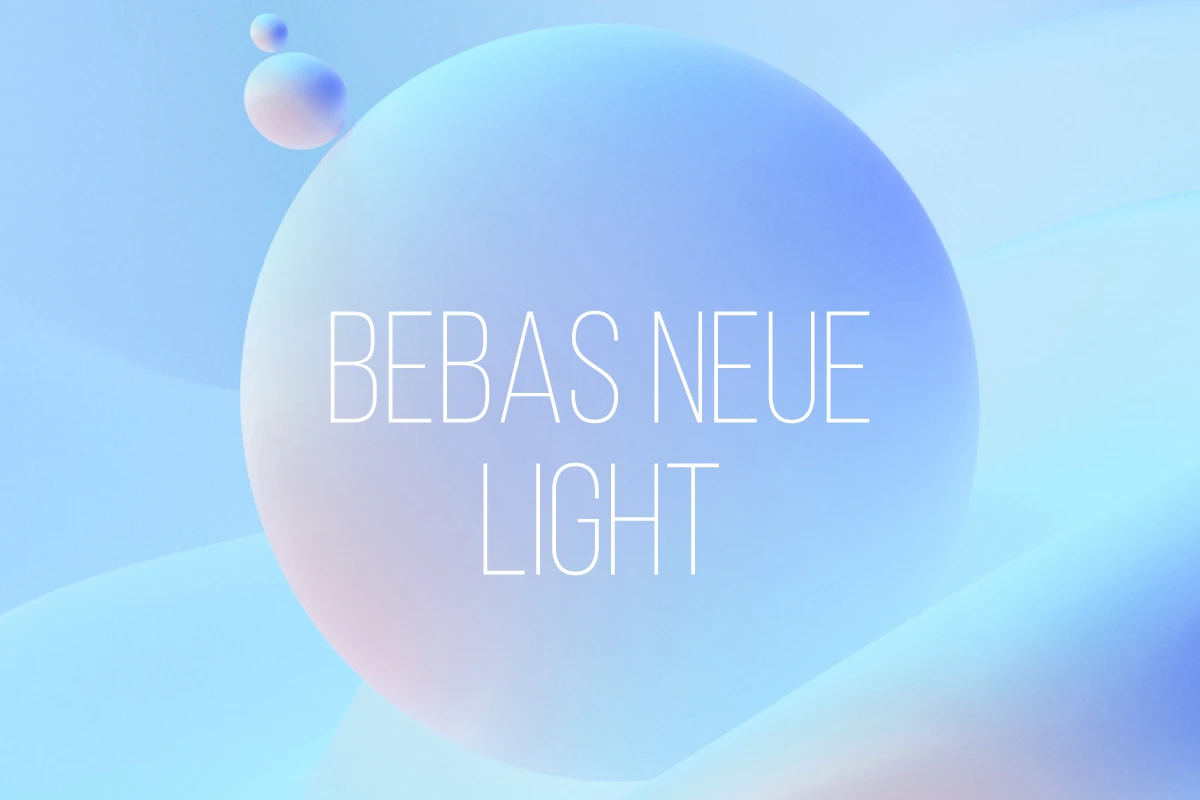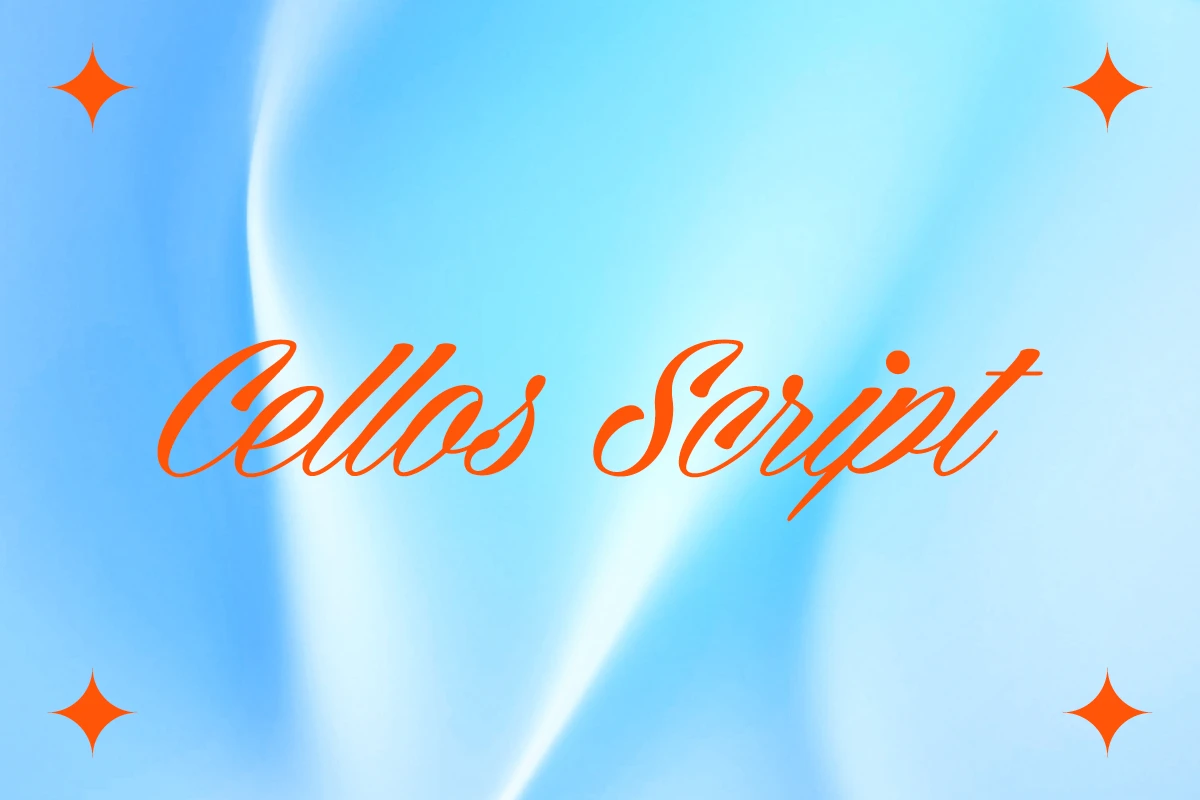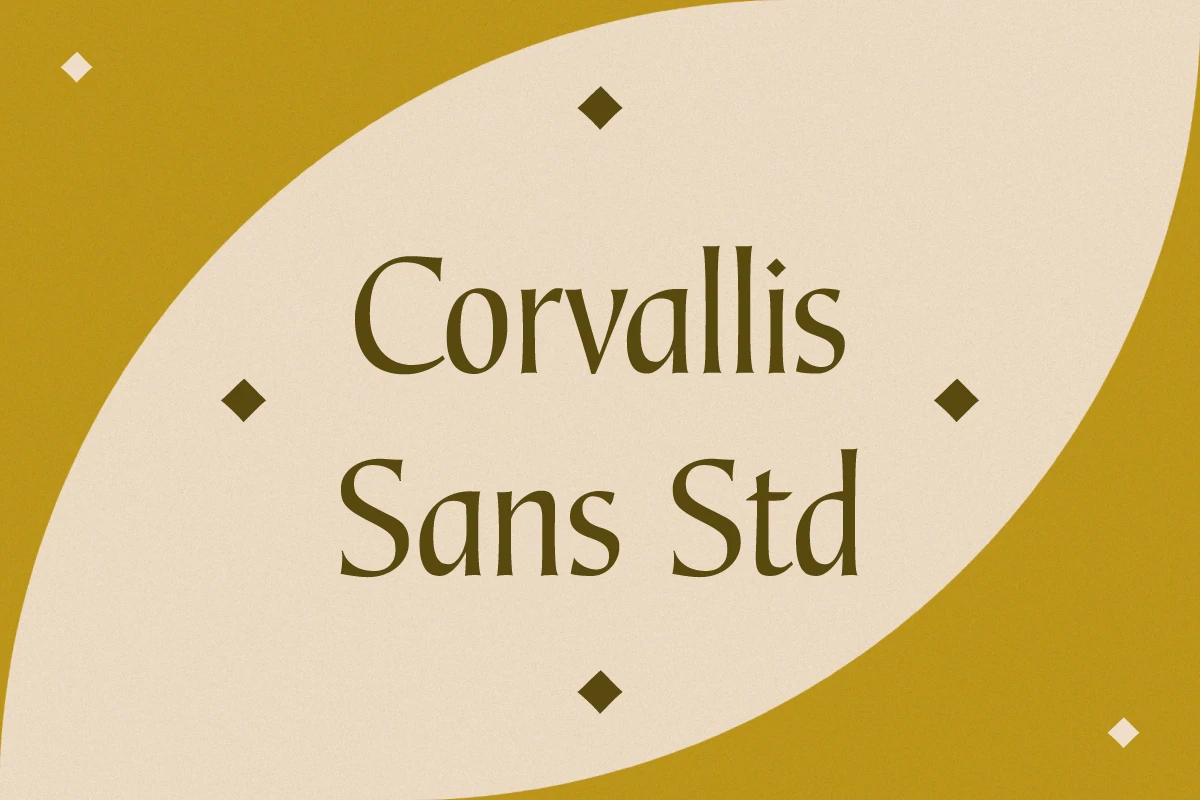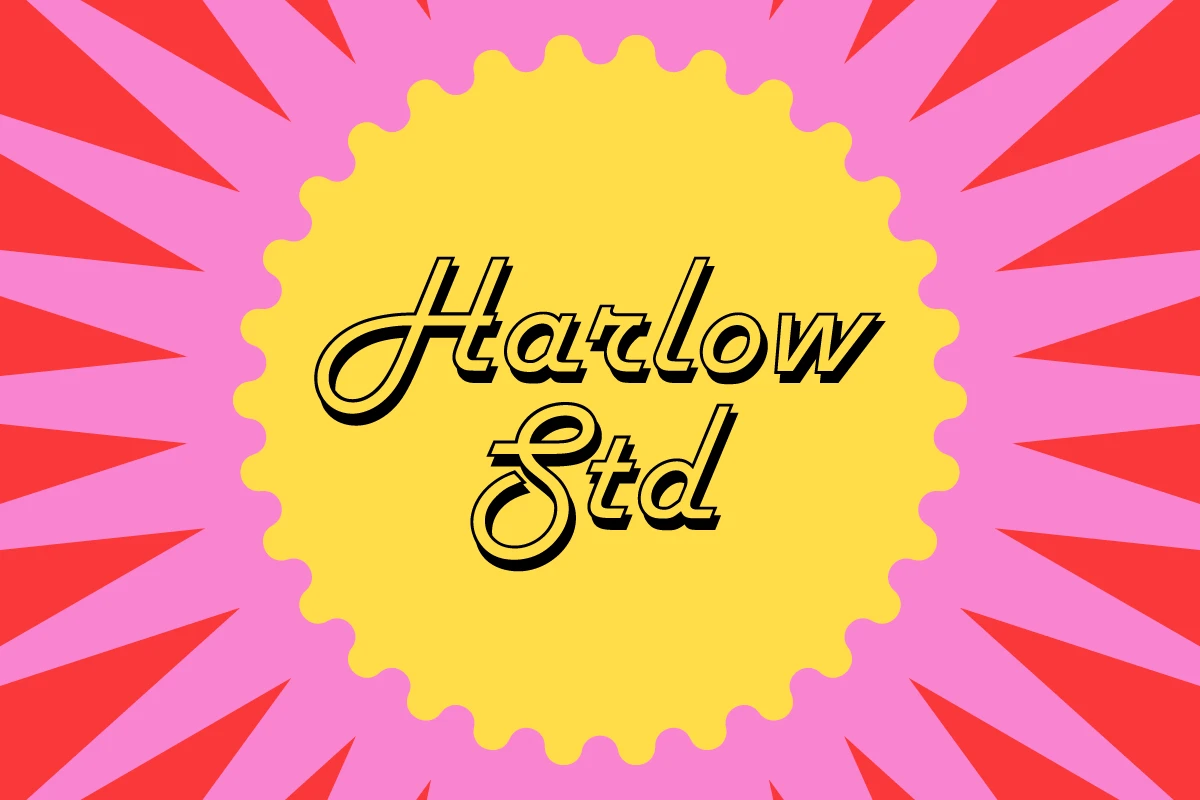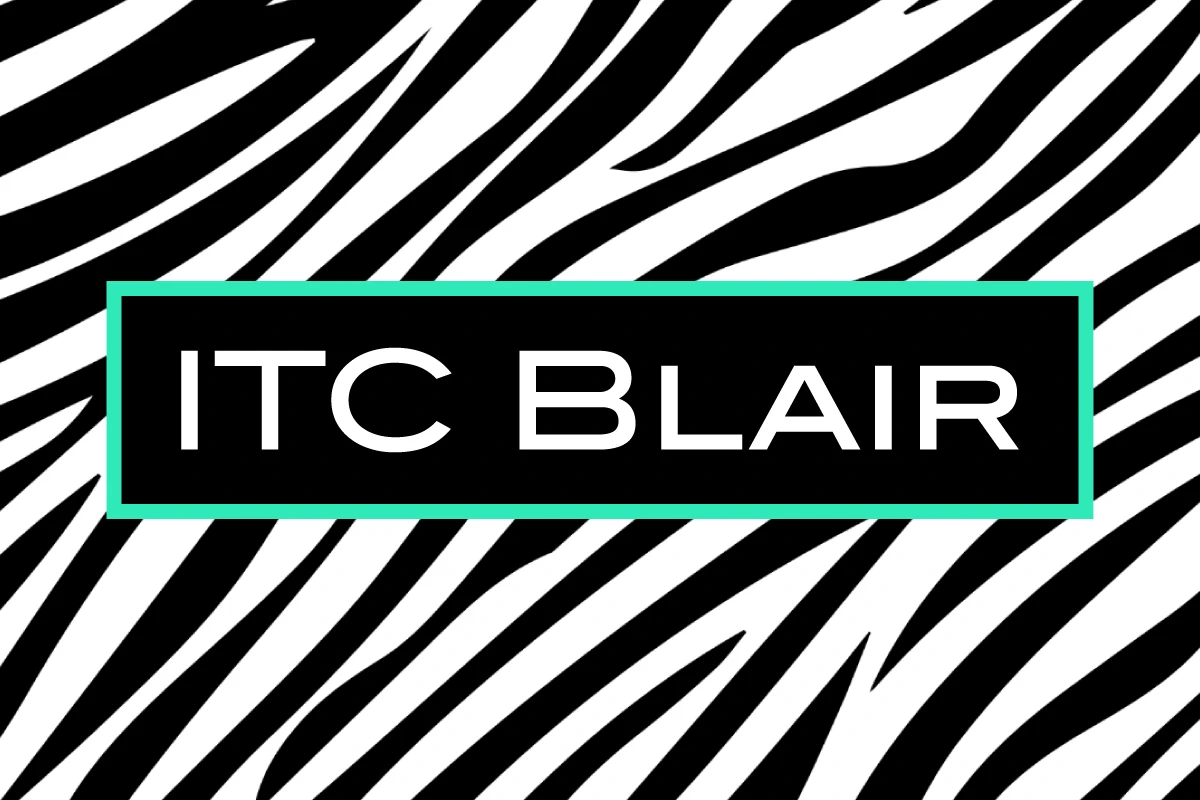
Text and copy are everywhere. Nothing conveys meaning or intention as clearly as a good piece of writing does. But no matter how good your writing is, text alone won’t get the attention it deserves if it doesn’t visually pull the reader in. That’s where graphic design and trendy fonts come into play.
There are two ways to make sure your copy gets noticed. The first method relies heavily on graphic design. By leveraging cool design elements surrounding your text, you can better catch the eye of readers. But what if you don’t have room for graphics? That’s where the second method, or typography, comes into play. Apply one of this year’s attention-grabbing trendy fonts to your piece to pull viewers in.
graphic design using a trendy font to write choose happy in black and white
How To Know if a Font is Trendy?
As a designer, you need to know what are the top fonts of the season, but it can be hard to stay on top of all of the visual and design trends. To make things easier, we have a few tips to identify whether a font is trendy or not.
First, you need to be active on social media. Follow other designers, artists, and innovative brands to stay up to date on their editing techniques and favorite fonts. If a font or typography style is gaining popularity, chances are that you will notice more designers using it in their creative. The more design-focused accounts you follow, the sooner you’ll likely spot newly trendy fonts.
You can also read up about trendy fonts in artistic journals. Most designer-oriented magazines (both digital and print) make predictions about the upcoming trends way ahead of the season. If you stay updated about the trends, you’ll slowly learn how to predict them on your own.
Finally, brush up on typography basics. Once you learn these basics, you’ll understand what fonts mean, how to use them together, and how to design with them. As a designer, you have the power to be a trendsetter, so use whatever fonts you like and they just may become trendy.
example of a trendy font in graphic design
What Was the Most Popular Font of 2021?
Helvetica is, without a doubt, the most popular font and has been for a while now. Keep in mind that Helvetica isn’t necessarily last year’s trendiest font, but it’s the most popular one. And that’s mostly due to the fact that Helvetica is pretty much used for everything. Even alternatives to Helvetica look pretty similar.
Overall, 2021 was an amazing year for typography. From calligraphy to typewriter fonts, there was a lot of diversity among last year’s trending fonts. Helvetica might commonly take the spotlight, but this is mostly due to practicality reasons, as it’s hyper-legible across both digital and print mediums.
The Best and Most Trendy Fonts of 2022
So what’s going to be trendy this year? After last year’s designer fonts, we predict that 2022 is going to be a year full of hope, experimentation, and surprises. Here are our top picks for best fonts for designers in 2022:
1) Bebas Neue Light
Chic minimalism doesn’t seem to be going anywhere in 2022 and Bebas Neue Light is here to prove it. Based on the original Bebas Neue free font by Ryoichi Tsunekawa, Bebas Neue Light is an amazing new addition to the Bebas Neue sans-serif font family.
The elegance of the font is captured by its clean lines and elegant shapes. The all-caps nature of it makes it great for title and logo designs, making it a great addition to a designer’s portfolio. If you’re into minimalist typewriter fonts, Bebas Neue Light may just become your favorite font this year.
bebas neue light font
2) ITC Blair
ITC Blair has been around for quite a long time and it will finally get its turn to shine among trendy fonts this year. This font started as a simple handset metal typeface and was popular from the 1910s to the 1950s. In 1997, the font was revived by Jim Spiece, bringing it to a new commercial audience. ITC Blair is elegant and minimalistic in nature, but its unusual weight and width make it great for cool title fonts. If you’re looking for something simple, but loud, this is the font for you.
ITC Blair font
3) Corvallis Sans Std
Corvallis Sans Std was designed by Philip Bouwsma as a part of the bigger Corvallis Sans font family. Bouwsma was interested in calligraphy and its influence is noticeable in the typefaces he created. This is a neutral font with a bit of flair, making it legible but eye-catching. The weight of the lines varies within each letter, giving the text a dynamic look. In 2022, you’ll notice variations on this font in static designs.
corvallis sans std font
4) Optien
Optien should definitely become a part of your design arsenal this year. This font is made for lovers of everything bold yet slick. Optien was designed by Måns Grebäck, a typeface designer based in Sweden. Its weight and boldness make it great for cool title fonts, while the curved nature of the letters gives it a modern vibe. If you’re looking for something more experimental, or perhaps even futuristic, then this is the font of the year for you.